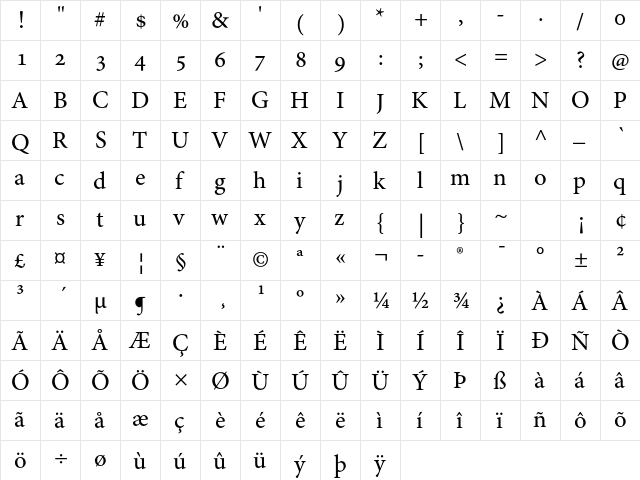
Adobe Hebrew Regular
| Foundry | Tiro Typeworks for Adobe Systems Incorporated. |
| Designer | John Hudson (Hebrew) and Robert Slimbach (Latin) |
Design Context for Adobe Hebrew Typeface
Adobe Hebrew is a composed and adaptable typeface that performs quietly and consistently across a wide range of design contexts.